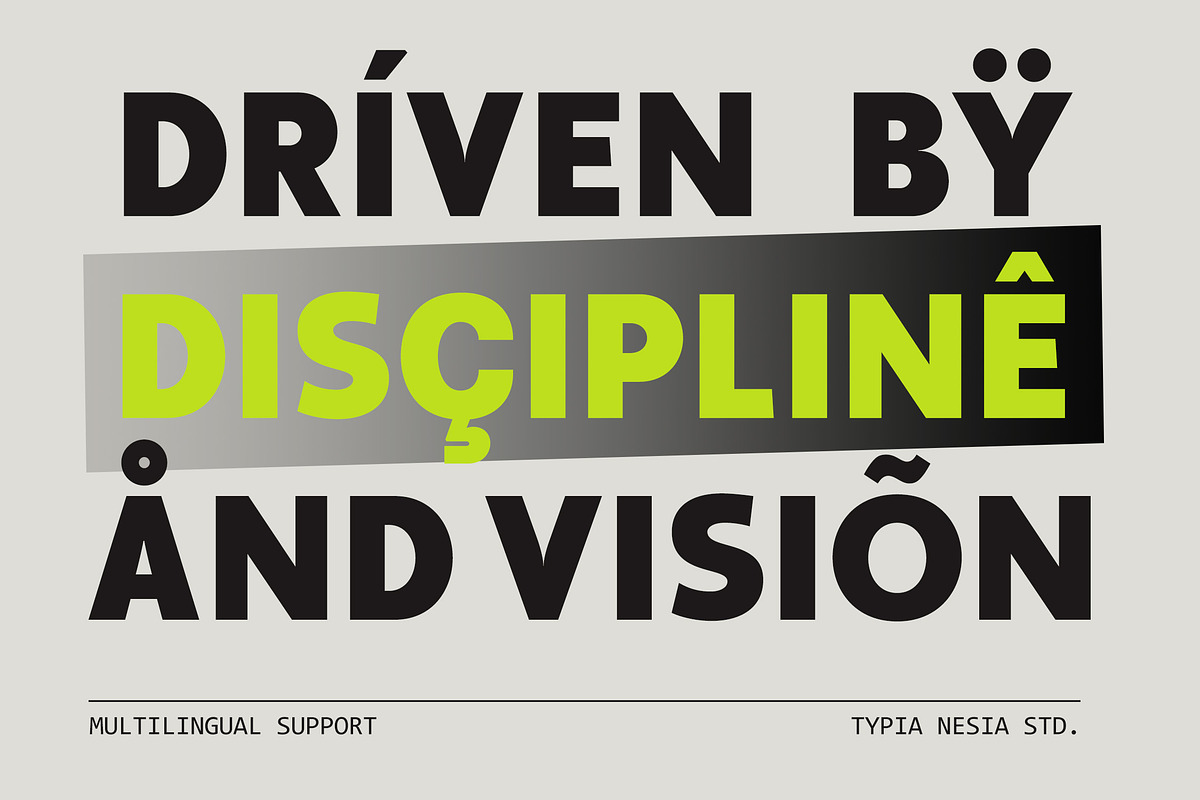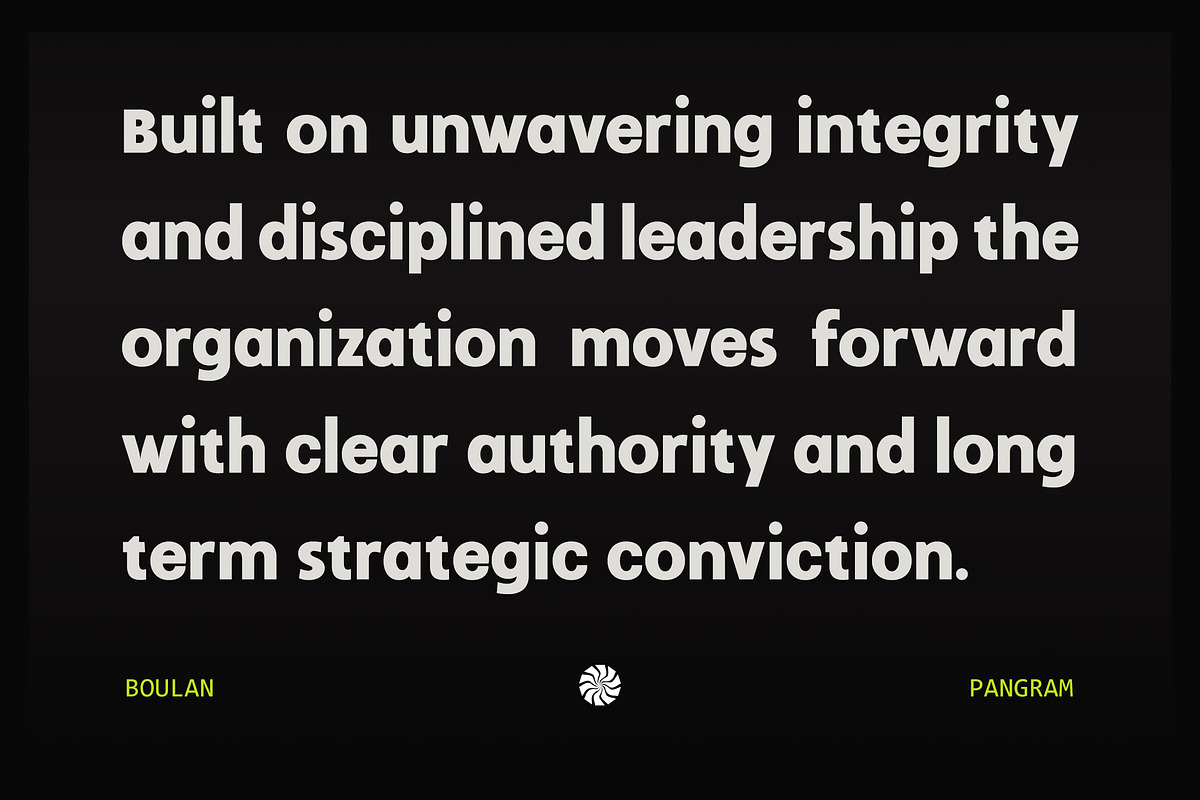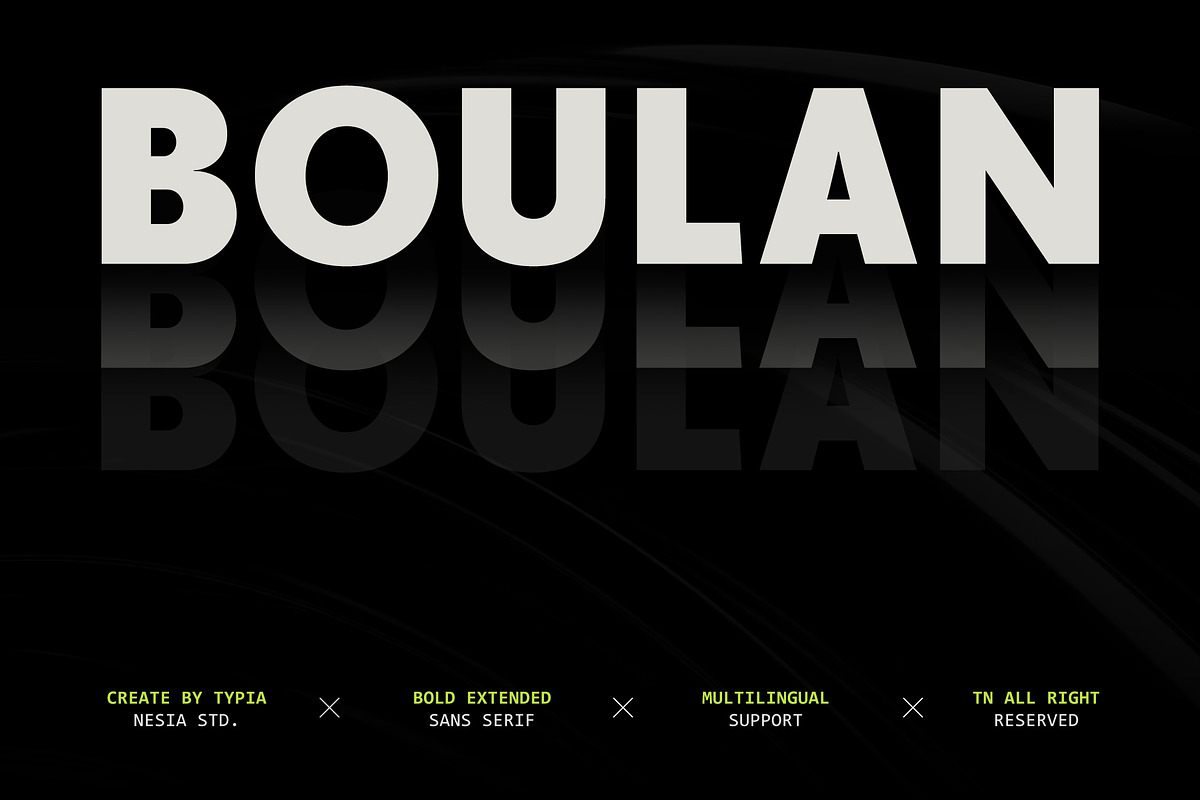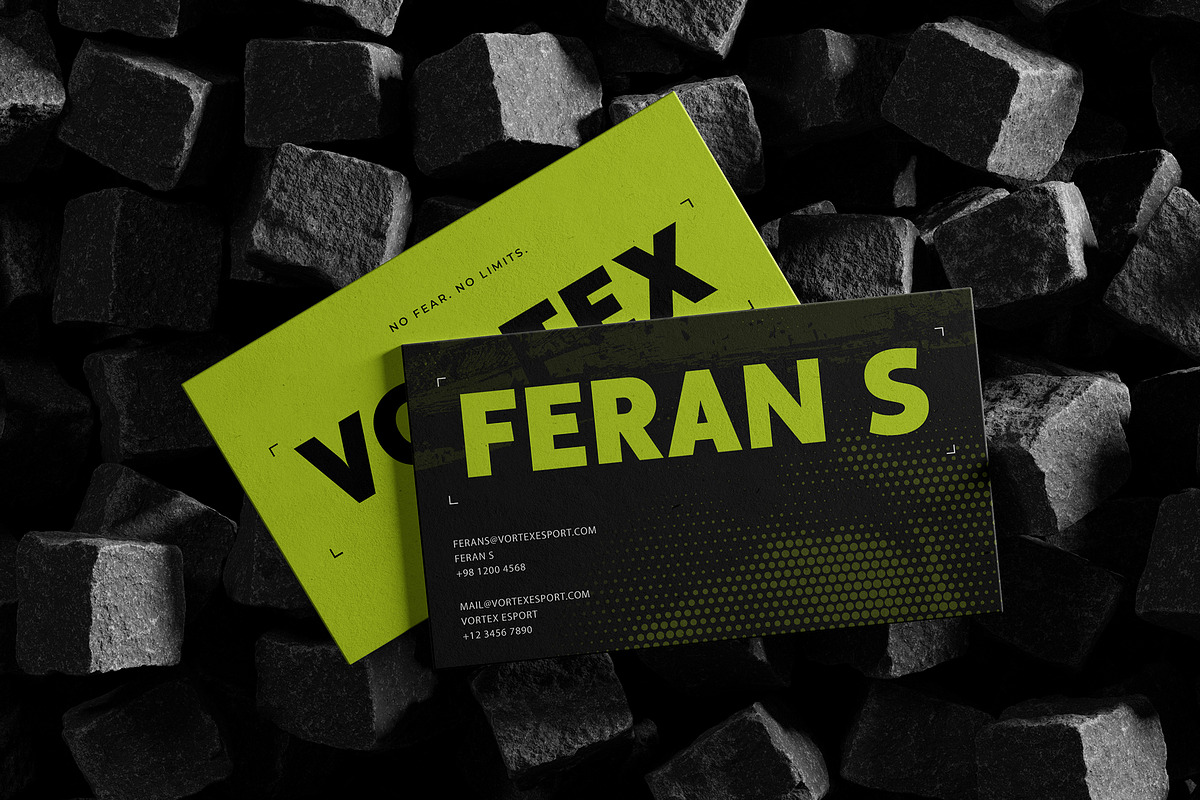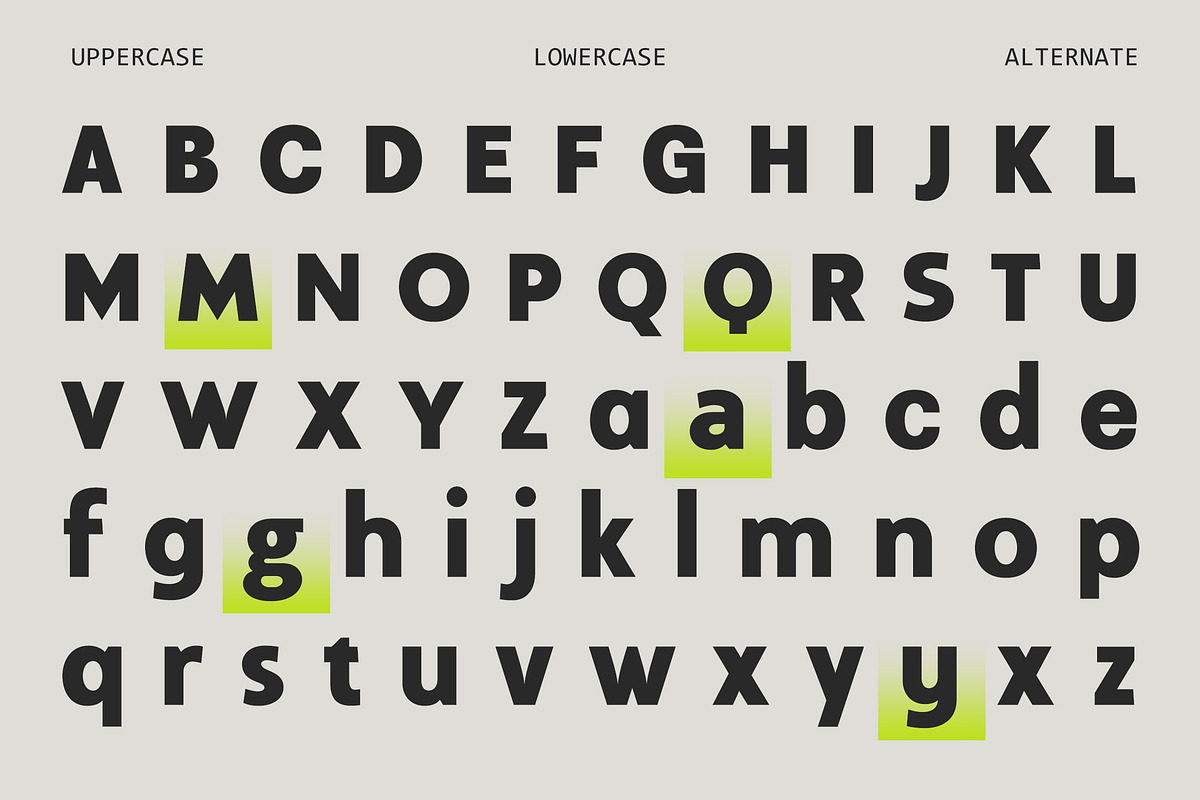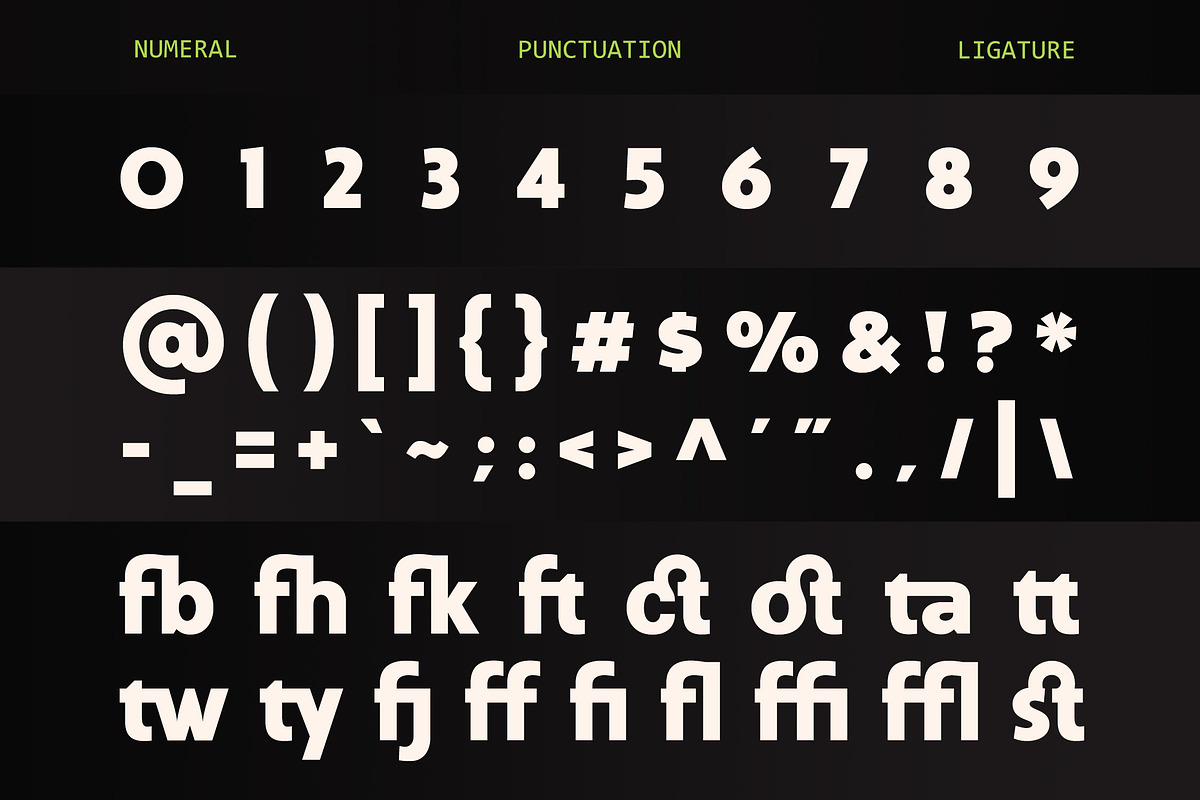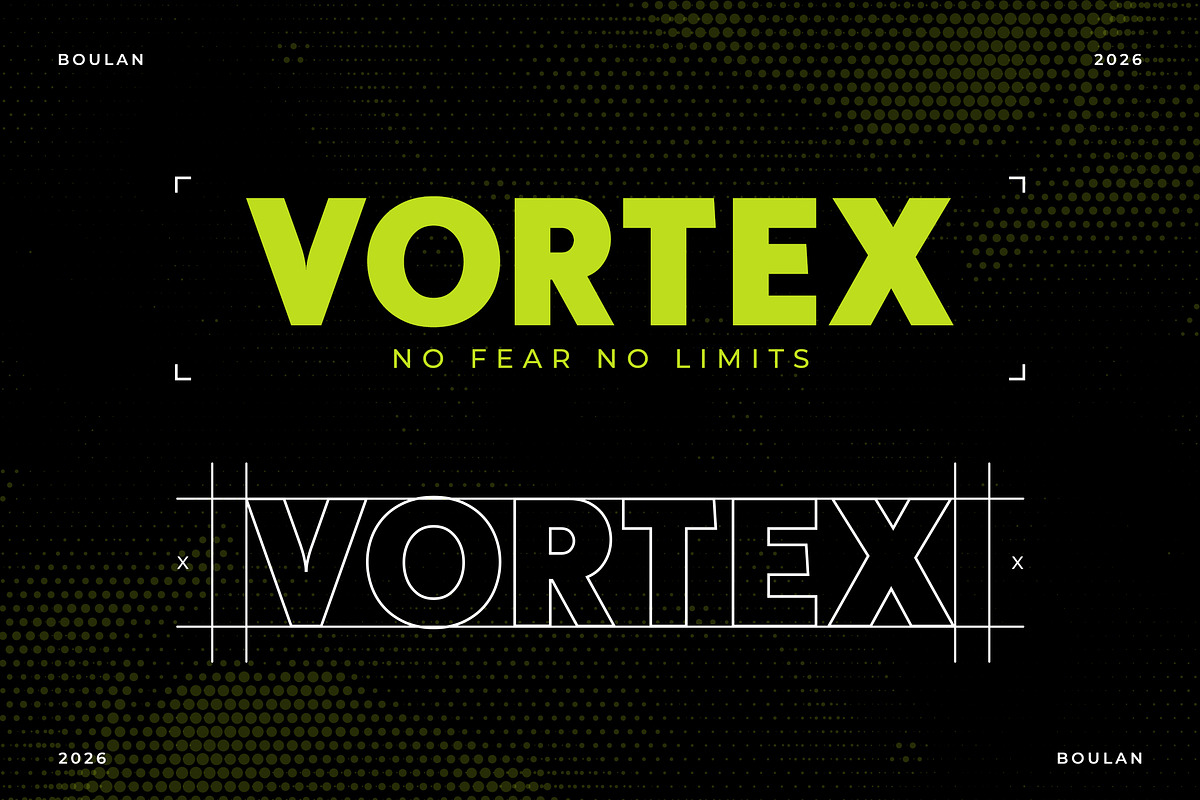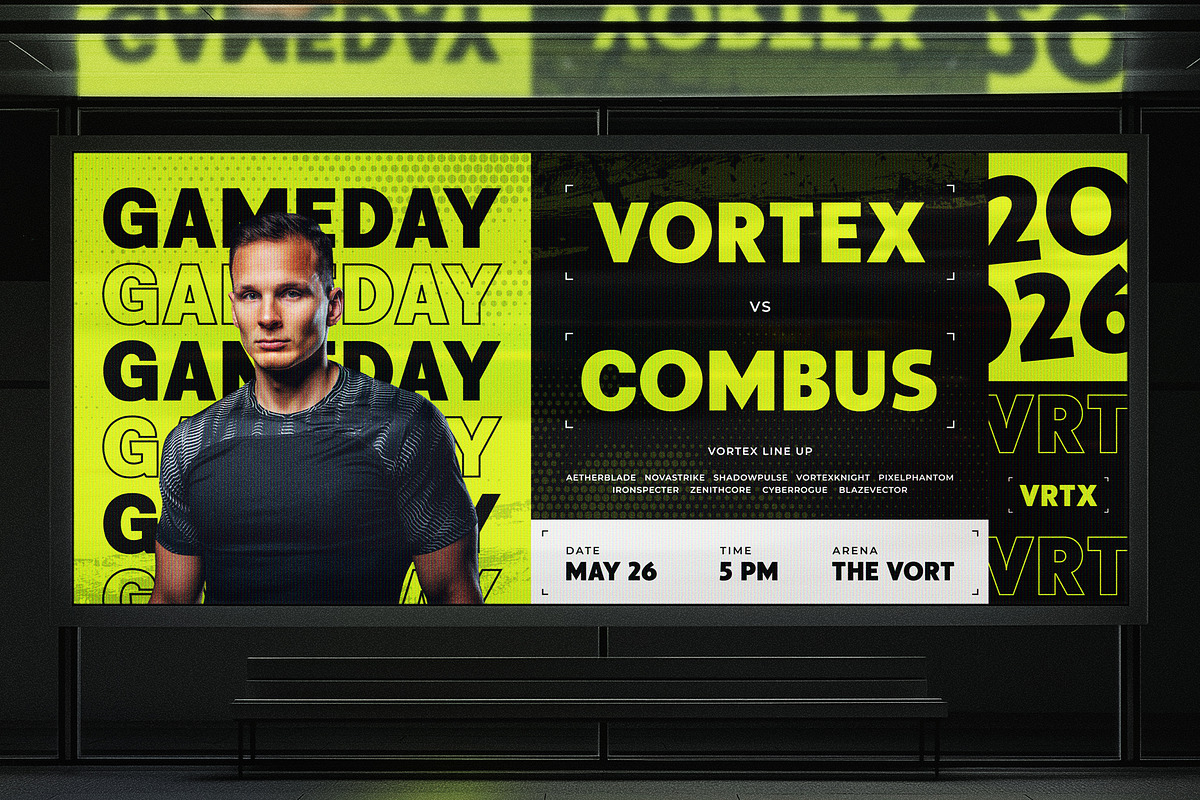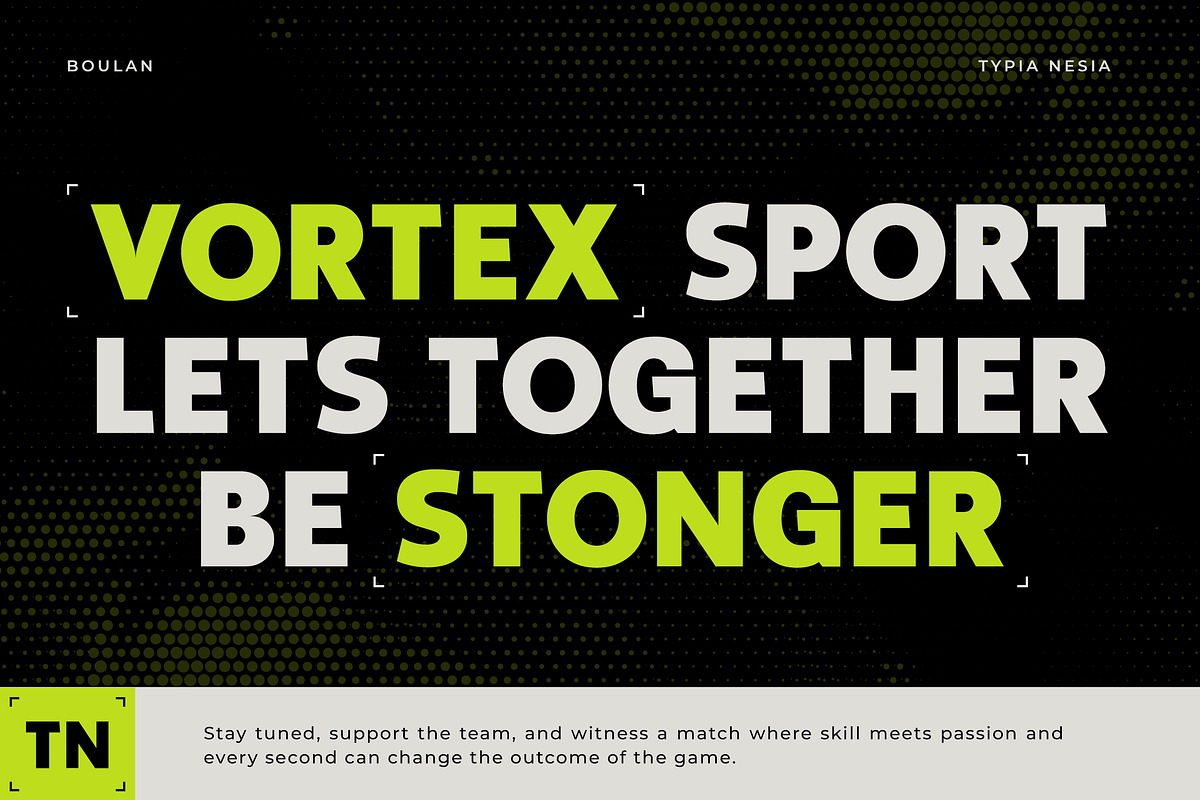
Boulan - Bold Modern Clean Logo Font
Boulan - Bold Modern Clean Logo Font - Game & Sport Display Font
Boulan is a modern bold sans serif font designed with a clean and powerful structure for impactful visual identity. Built with strong geometric shapes and balanced proportions, this typeface delivers a minimal, modern, and professional look that works perfectly for contemporary design needs. Its bold letterforms create a confident presence, making it ideal for logos, branding, packaging, headlines, corporate identities, startup brands, tech design, and any project that needs to communicate innovation, professionalism, and bold visual impact.
Bold Modern Clean Logo Font - Game & Sport Display Font